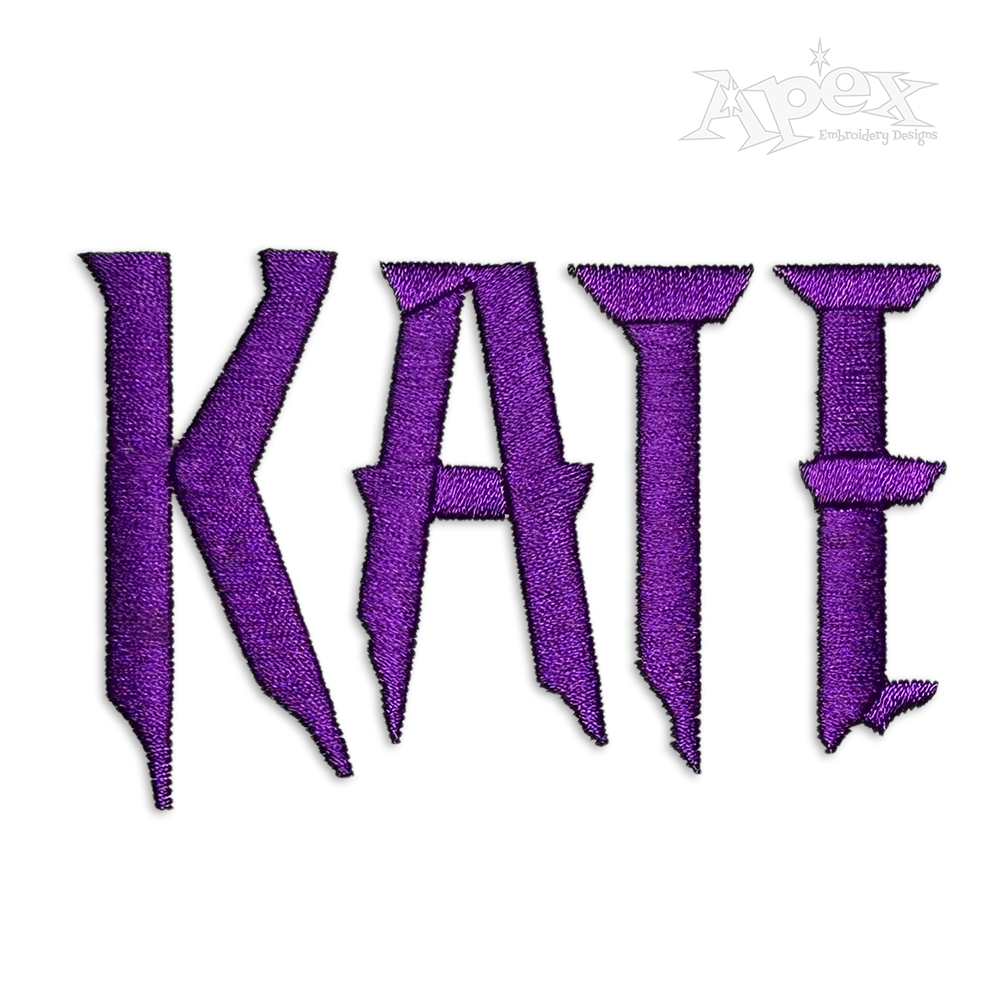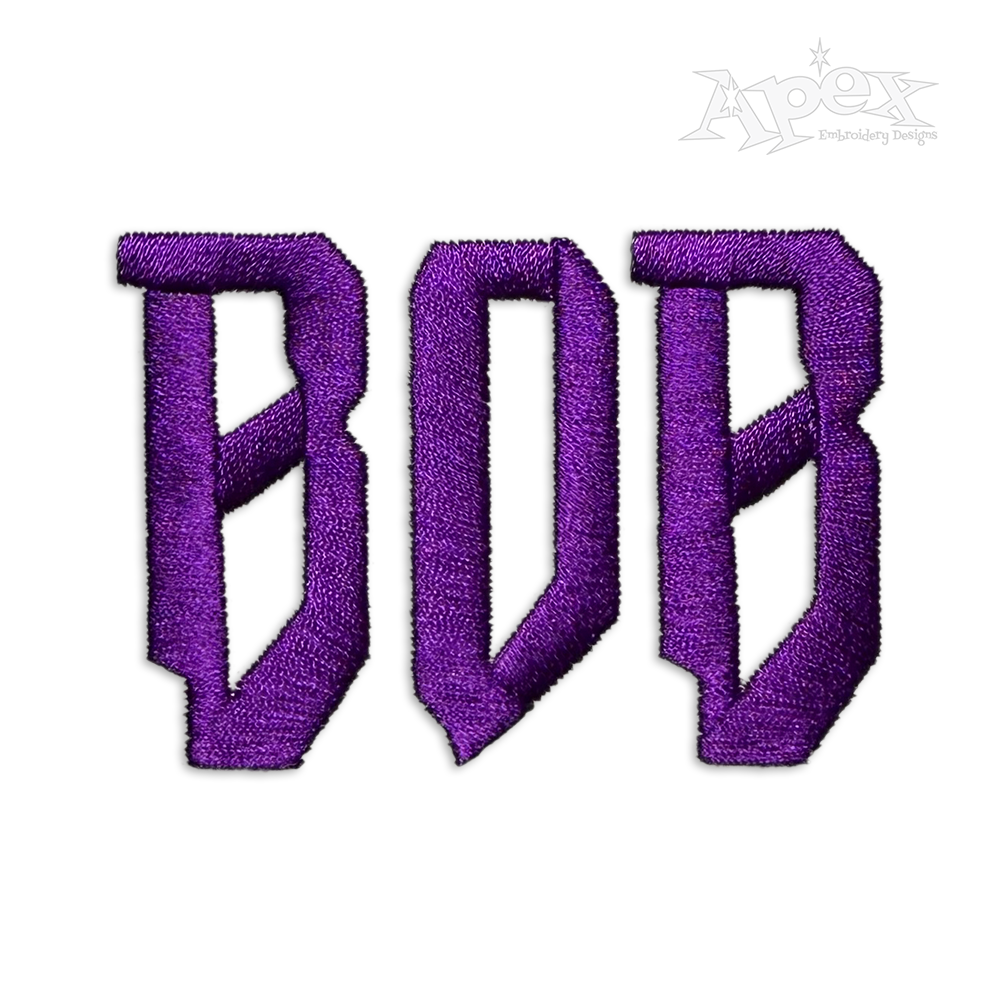
Spiderman Embroidery Font
Raw vigilante energy meets vintage comic book drama across every stitch. Jagged silhouettes drop into sharp liquid trails, evoking midnight skyline leaps, iconic superhero action, and eerie Halloween mystery. Digitized stitch paths run tight, dense, and clean, transforming ordinary thread into tactile pop-art sculpture on fabric.
Project Ideas for Spiderman
Bold character makes these letterforms versatile across streetwear, holiday gear, and personalized gifting:
- Bespoke superhero birthday shirts, costume capes, and denim jacket centerpieces.
- Trick-or-treat canvas tote bags stitched in high-contrast neon or glow thread.
- Custom monogramming on youth hoodies, fleece sweatshirts, and comic convention gear.
- Personalized gifting projects including canvas backpacks, lunch bags, and themed pillowcases.
- Playful edge accents on pocket flaps, sleeve bands, and casual snapback caps.
Strategic placement maximizes dramatic dripping effect across garments and accessories:
- Center chest placement anchors tees, sweatshirts, and superhero costumes with commanding presence.
- Full jacket back layout displays multi-letter names or squad words with maximum visual impact.
- Corner diagonal positioning on canvas trick-or-treat bags creates dynamic kinetic movement.
- Left cuff or pocket rim placement using smaller sizes delivers subtle villainous edge.
Spiderman Craft & Letterform Details
Sharp angularity defines this alphabet. Hand-drawn comic book title cards inspired exaggerated pointed terminals and descending drips. Each stroke balances aggressive gothic angles with smooth satin stitch flow. Satin columns change angle across sharp corners, preventing thread bunching while preserving knife-edge points. Carefully tuned pull compensation ensures needle penetrations yield crisp dripping contours rather than rounded blobs, whether sewing lightweight cotton jersey or heavyweight canvas.